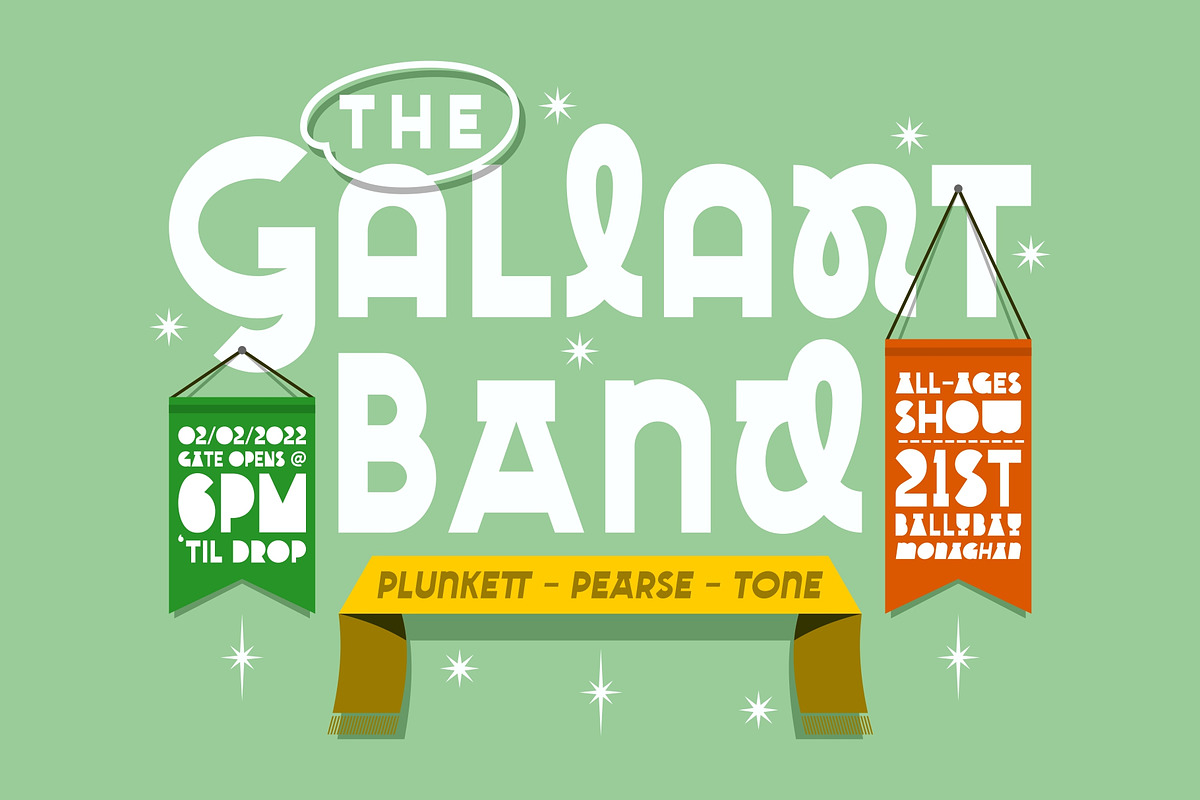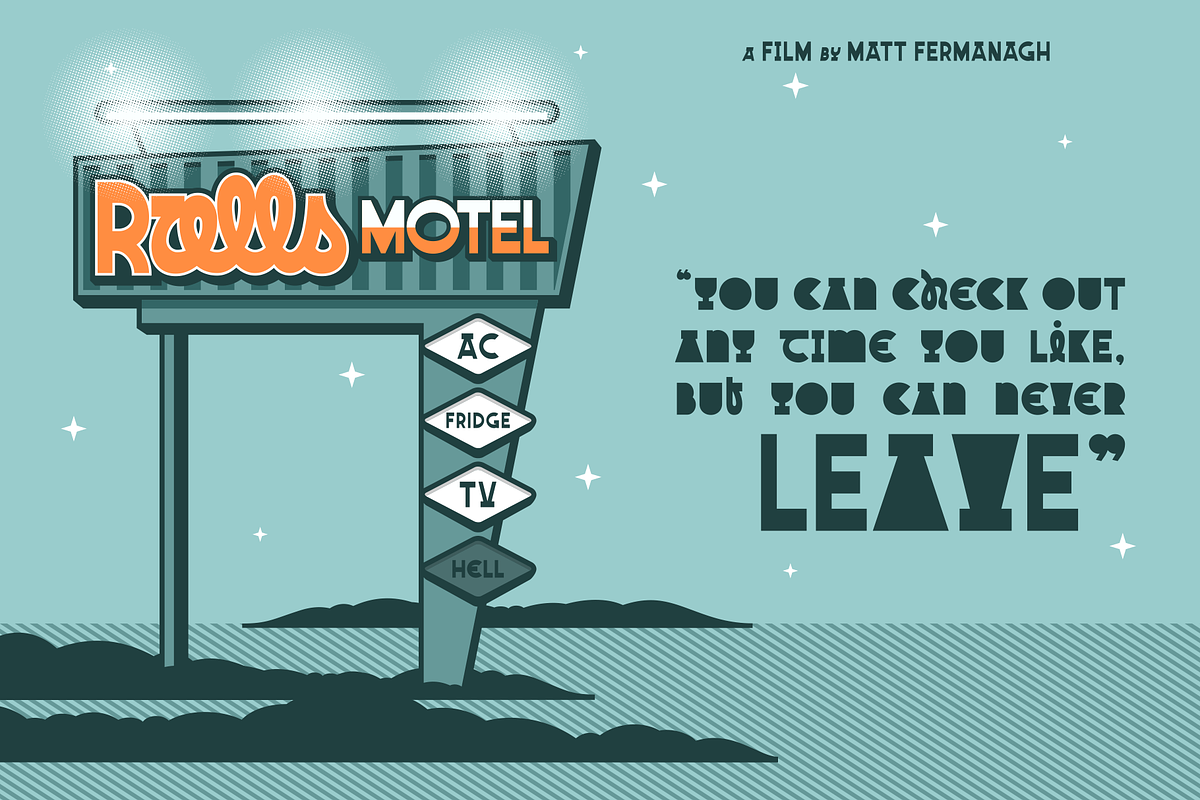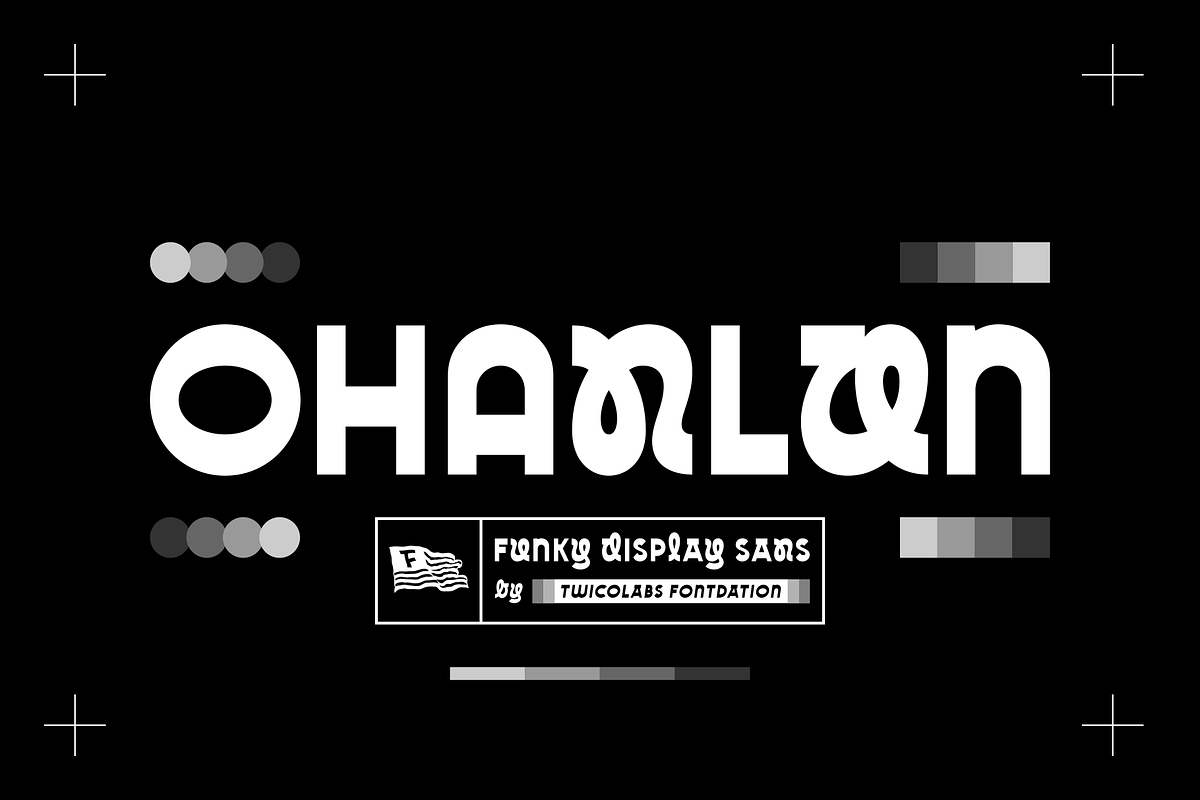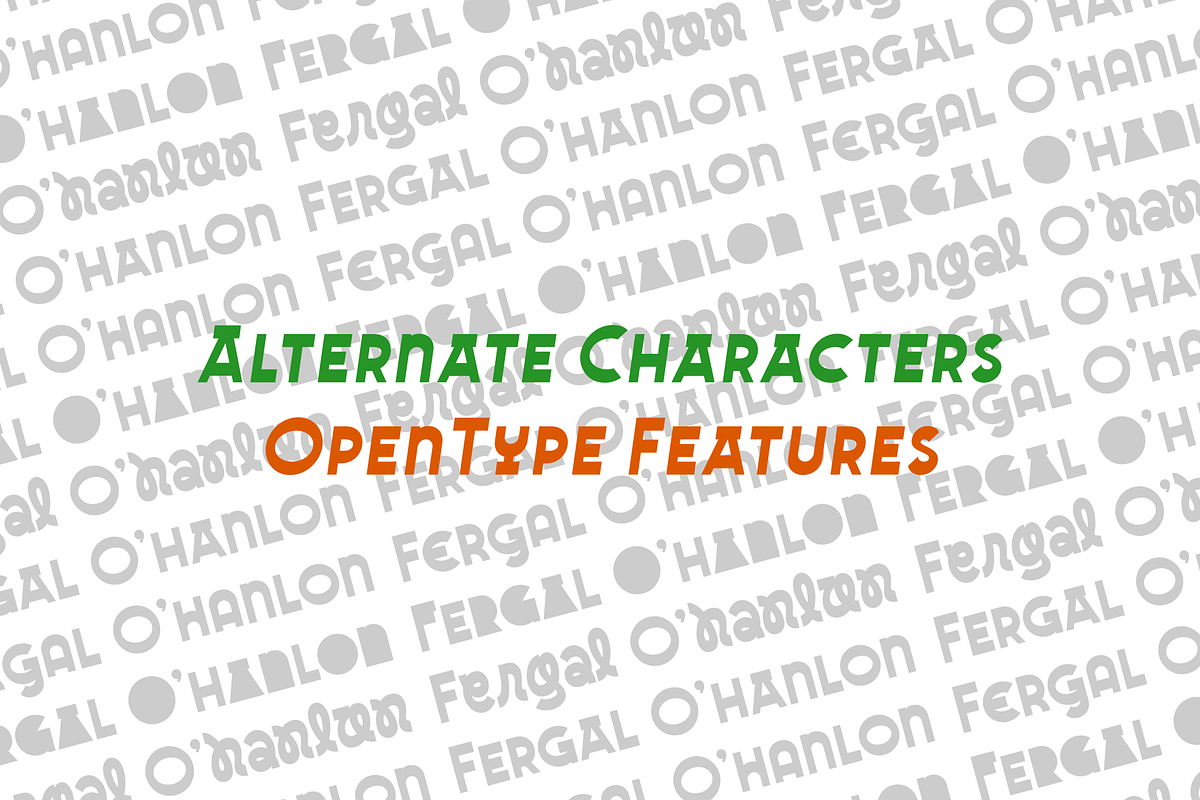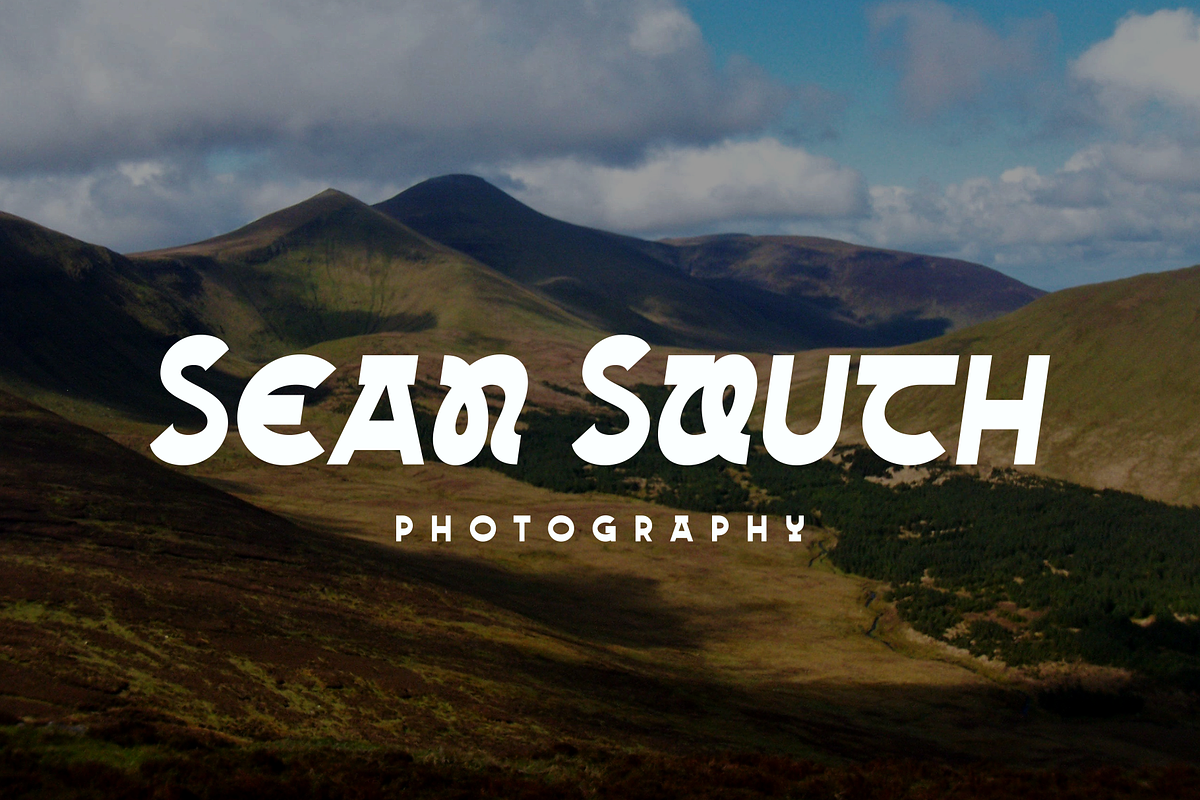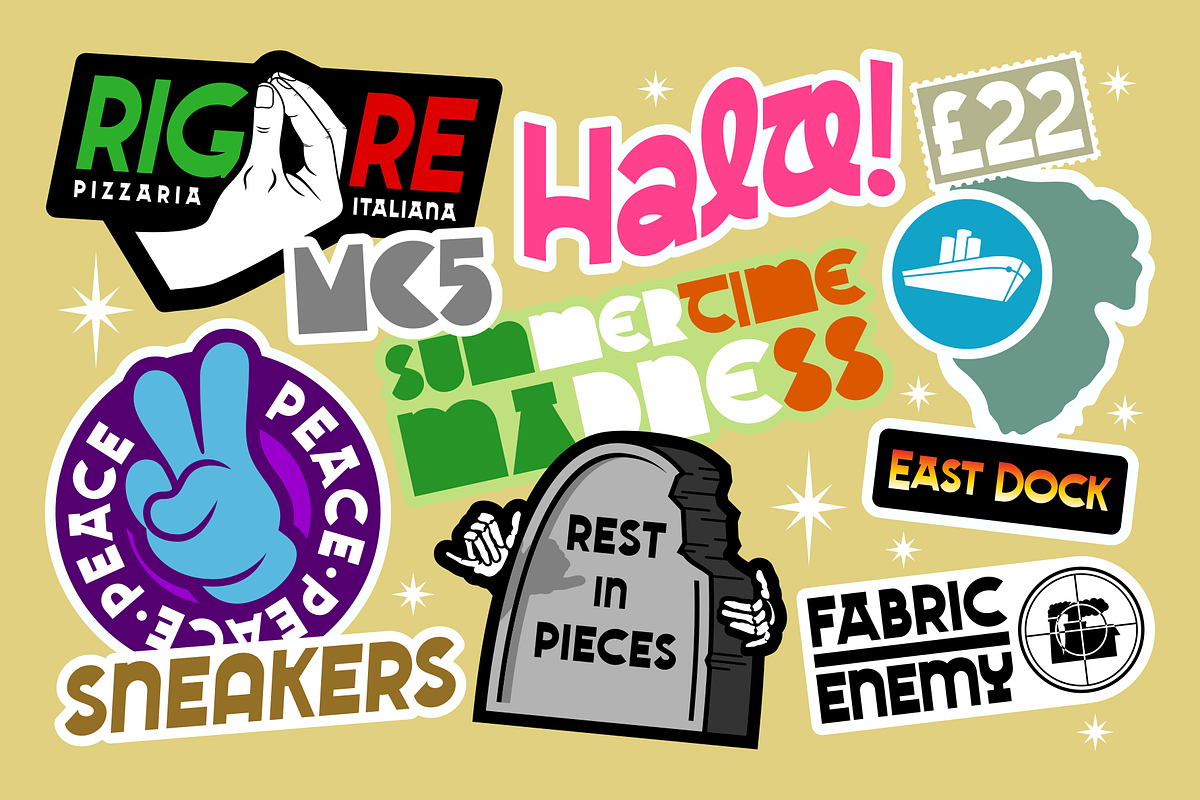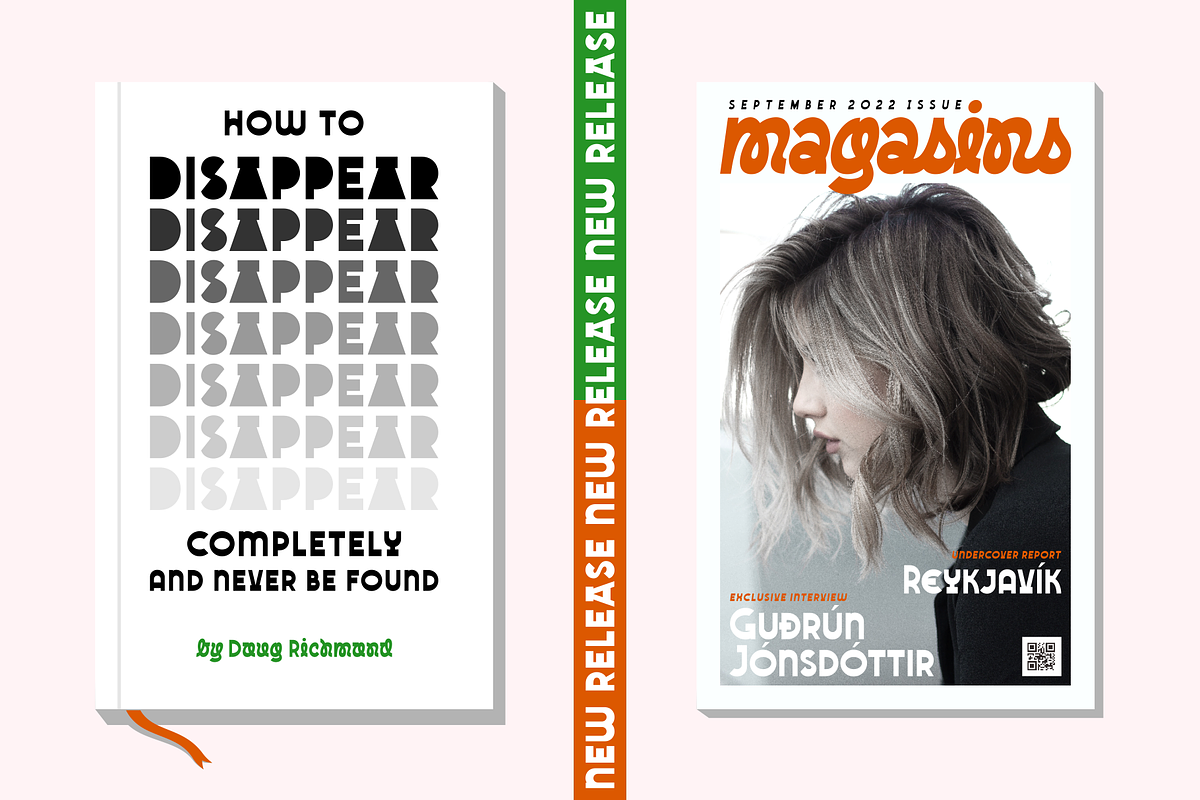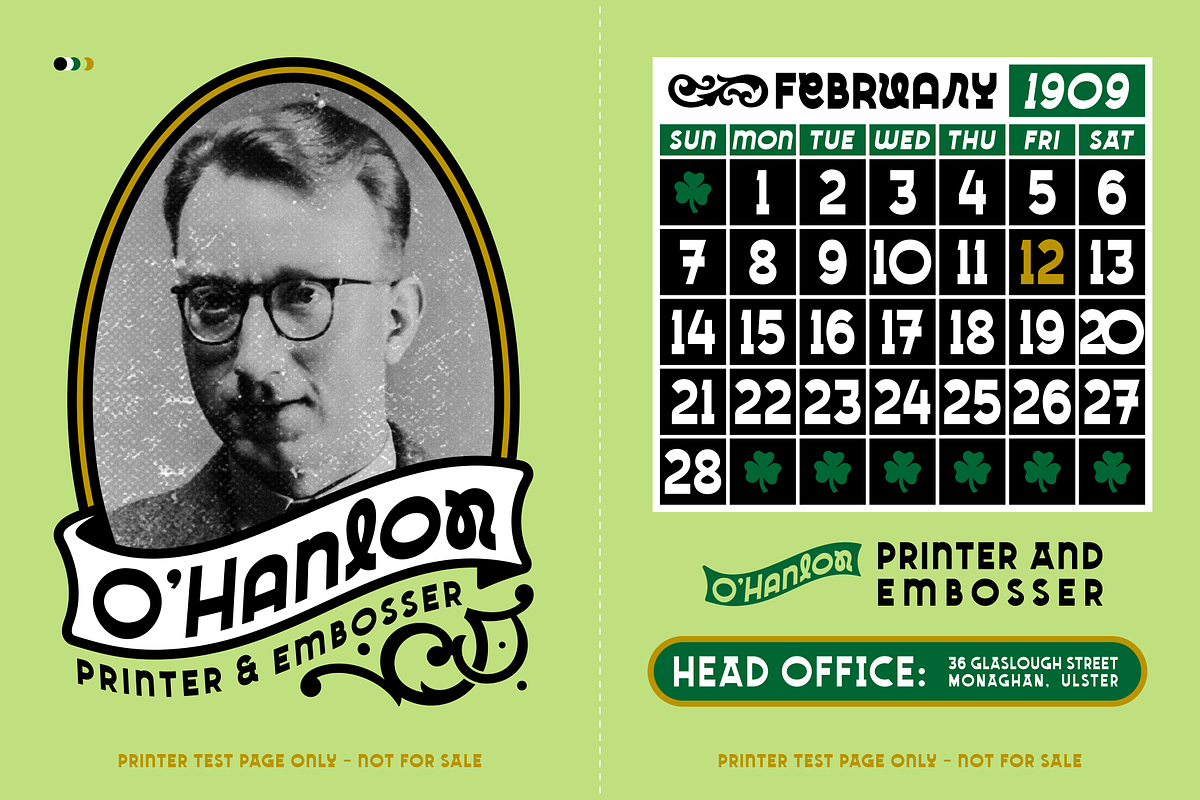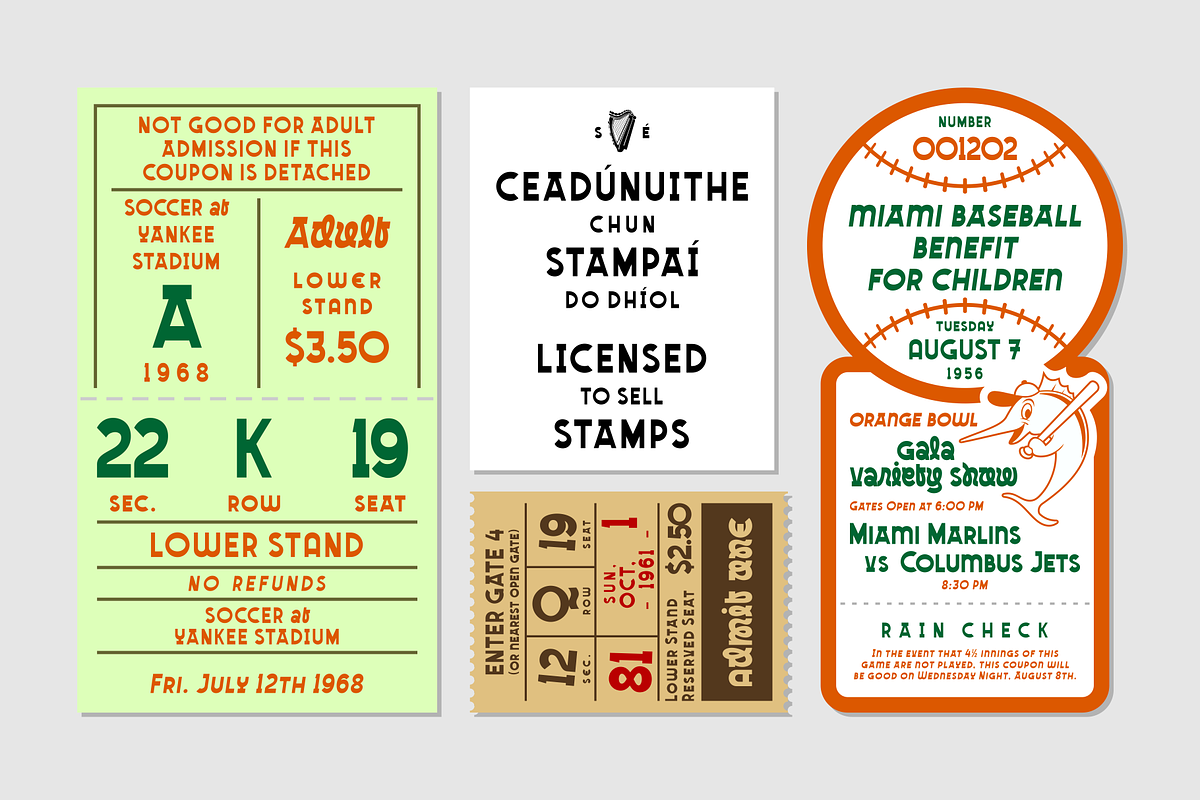
Ohanlon | Experimental Sans
Introducing our new release: Ohanlon.
Ohanlon is a bold display sans with a subtle hint of reverse-contrast personality which will gives dramatic feel to your design. Packed with lots of stylistic alternate characters to let you play with various letter combinations. Go wild and experimental by combining the sans with the block or script-ish alternate letters to elevate your design game, or you can even go formal with the standard letters. Oh and also, the slanted/faux-italic version is available too.
Suits best for logotype/branding, packaging design, and many other designs that need a direct punch to the face. Ohanlon is a versatile font, whether you'll go vintage or modern, this font will got your needs properly covered. Get your copy now!